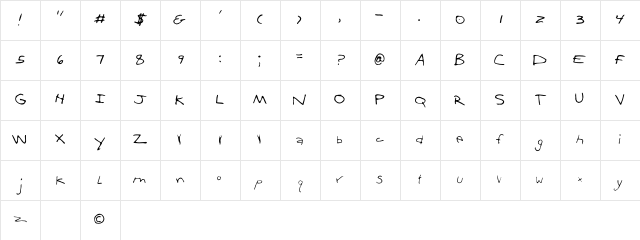
Scrawl Regular Free Font
Scrawl Regular
Complete Scrawl Regular glyph index. Displaying only characters natively supported by Scrawl Regular font.
Design Context for Scrawl
Scrawl is a composed and adaptable typeface that performs quietly and consistently across a wide range of design contexts.